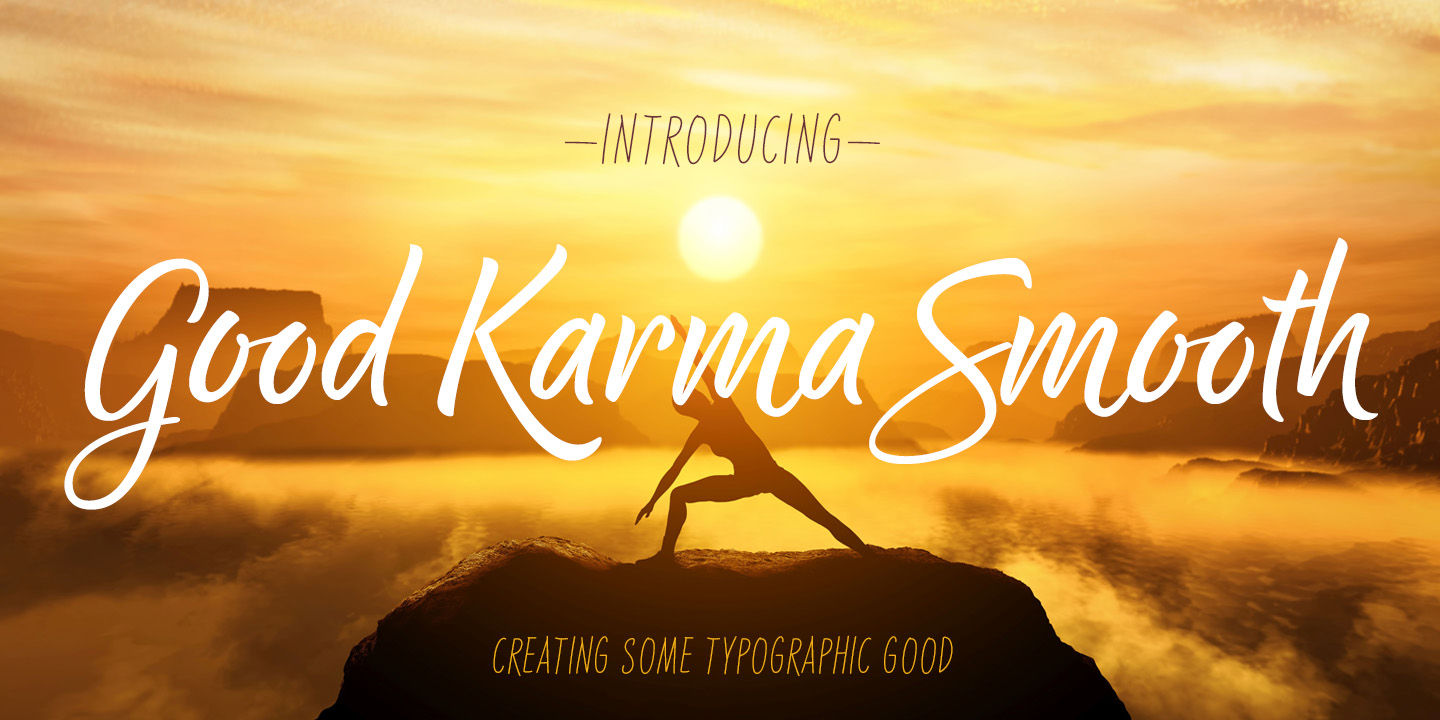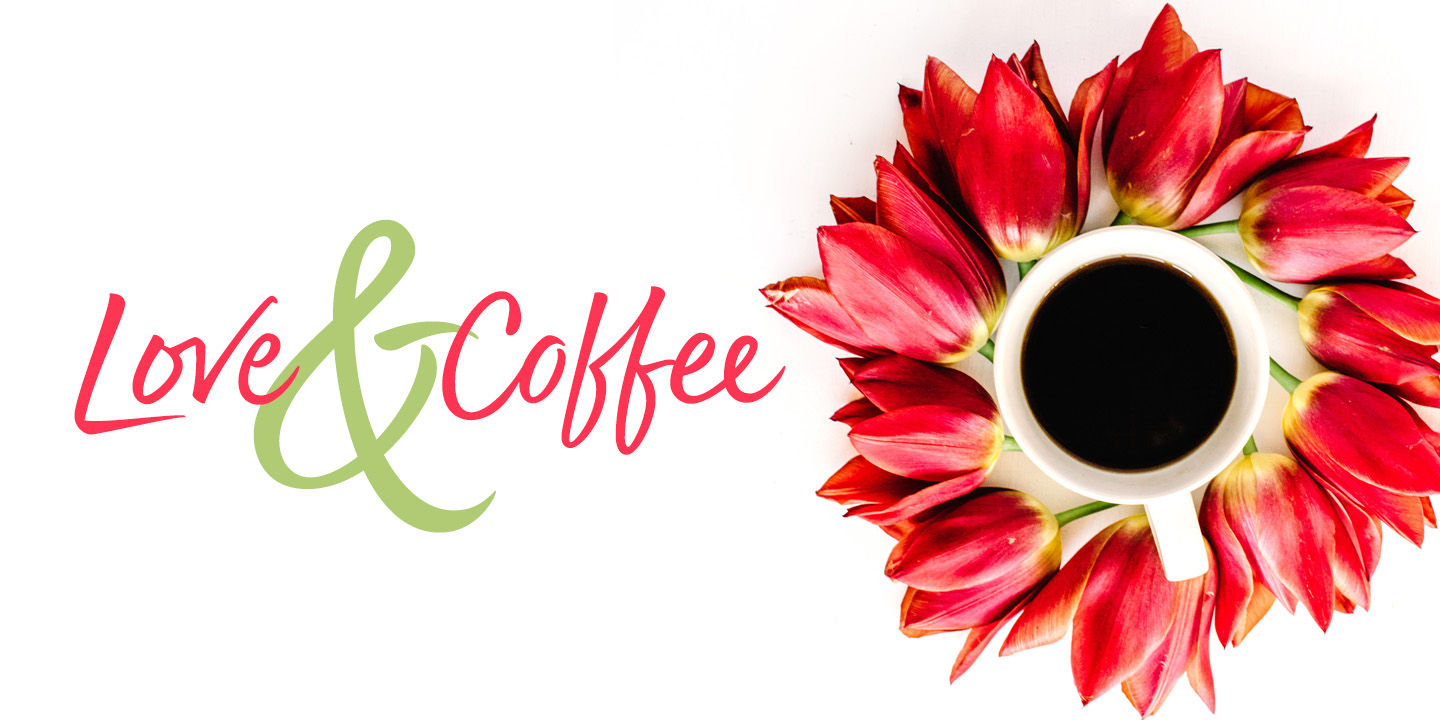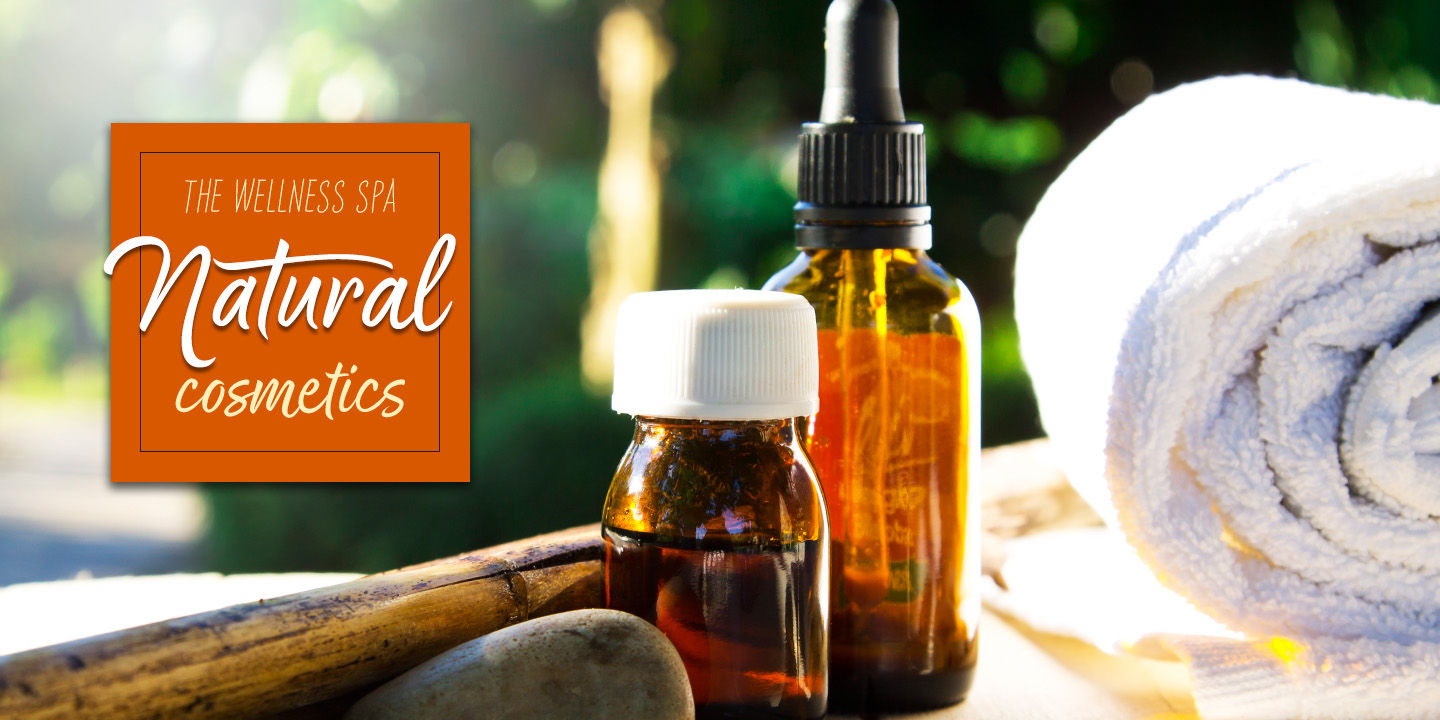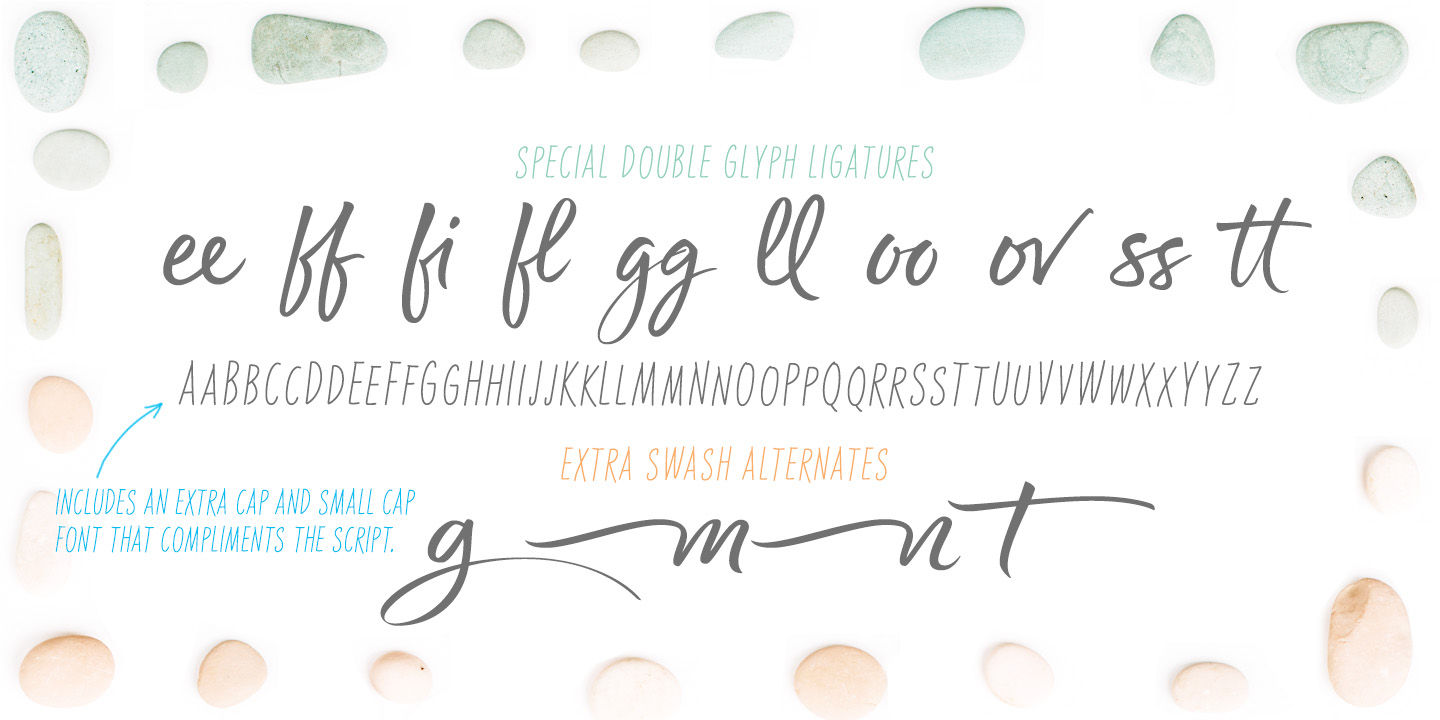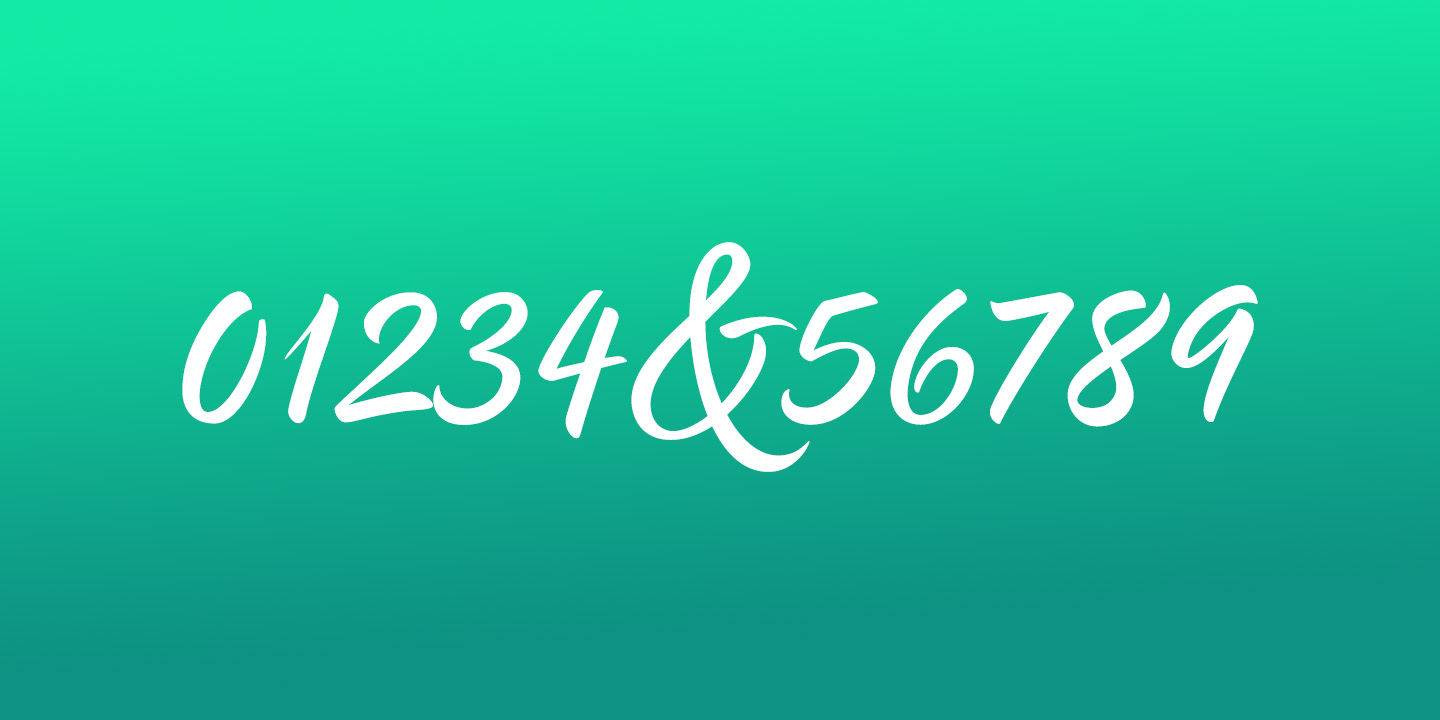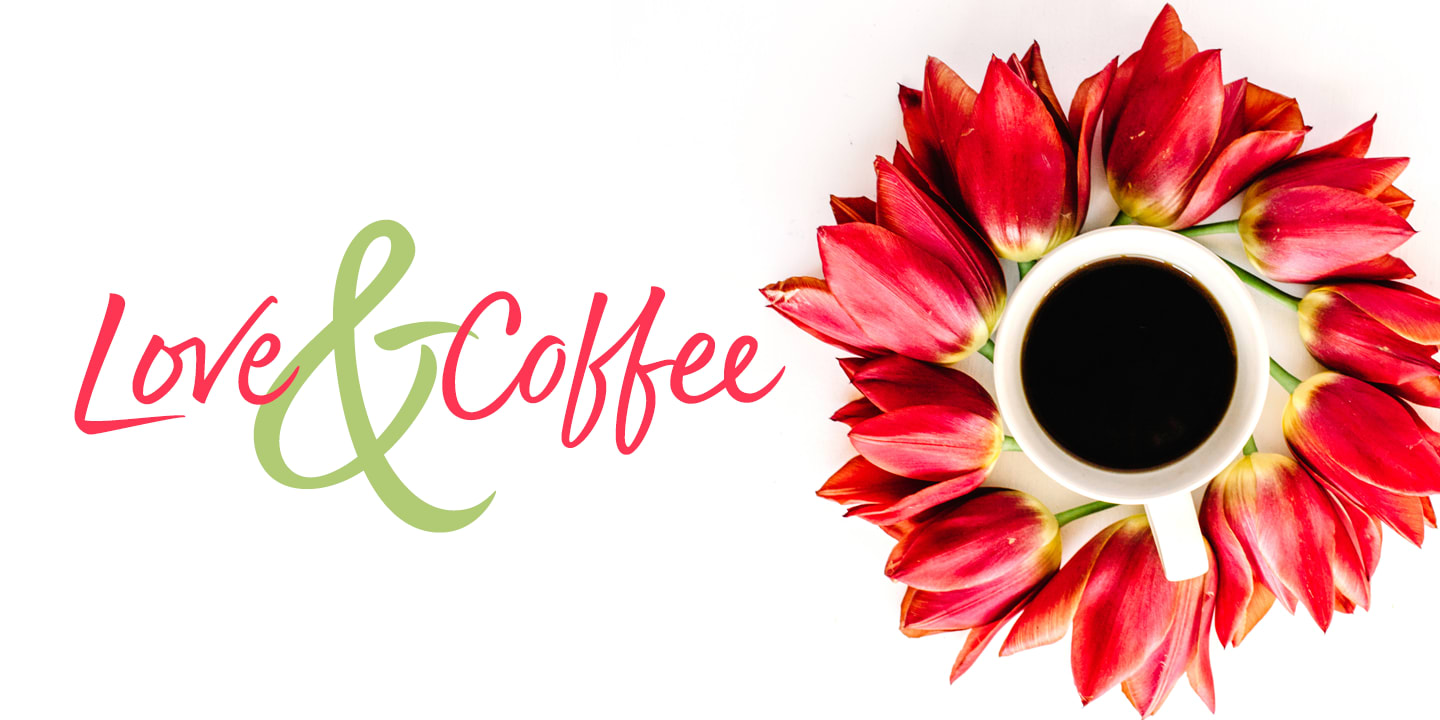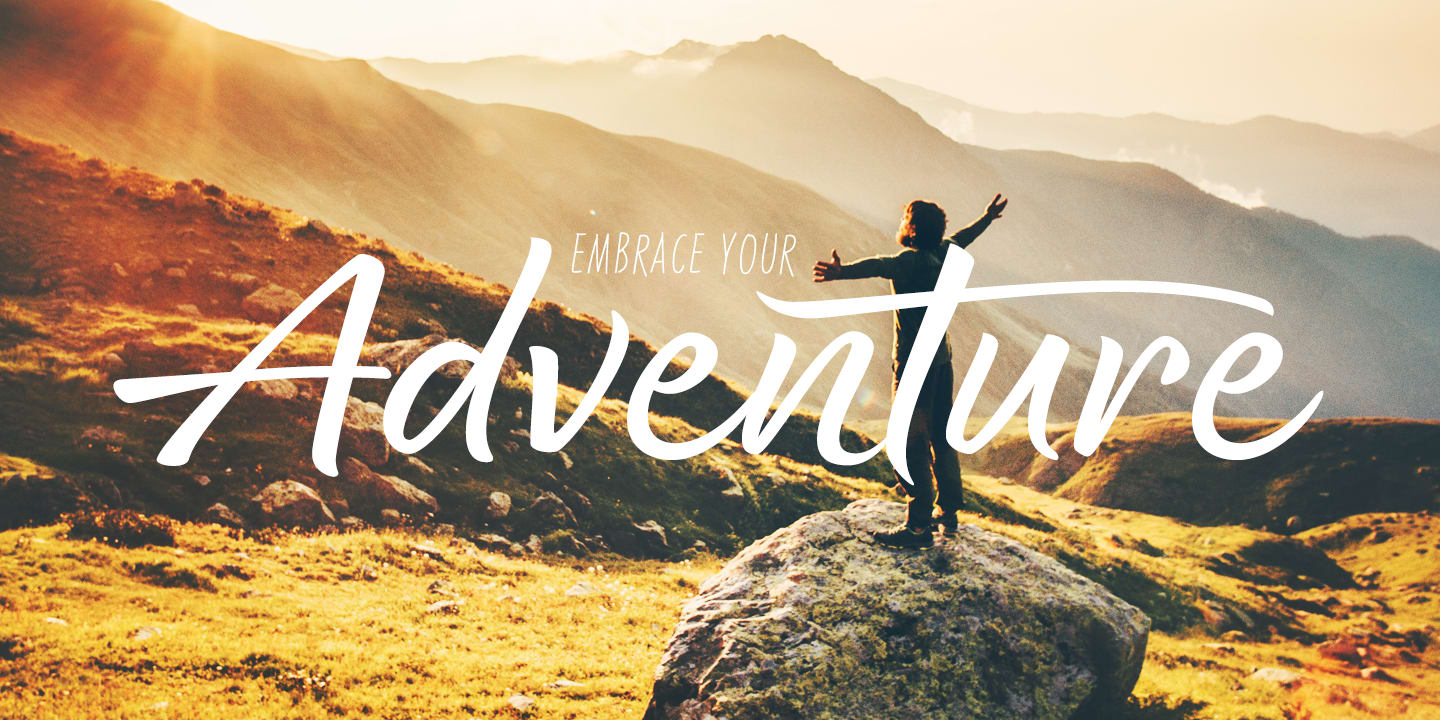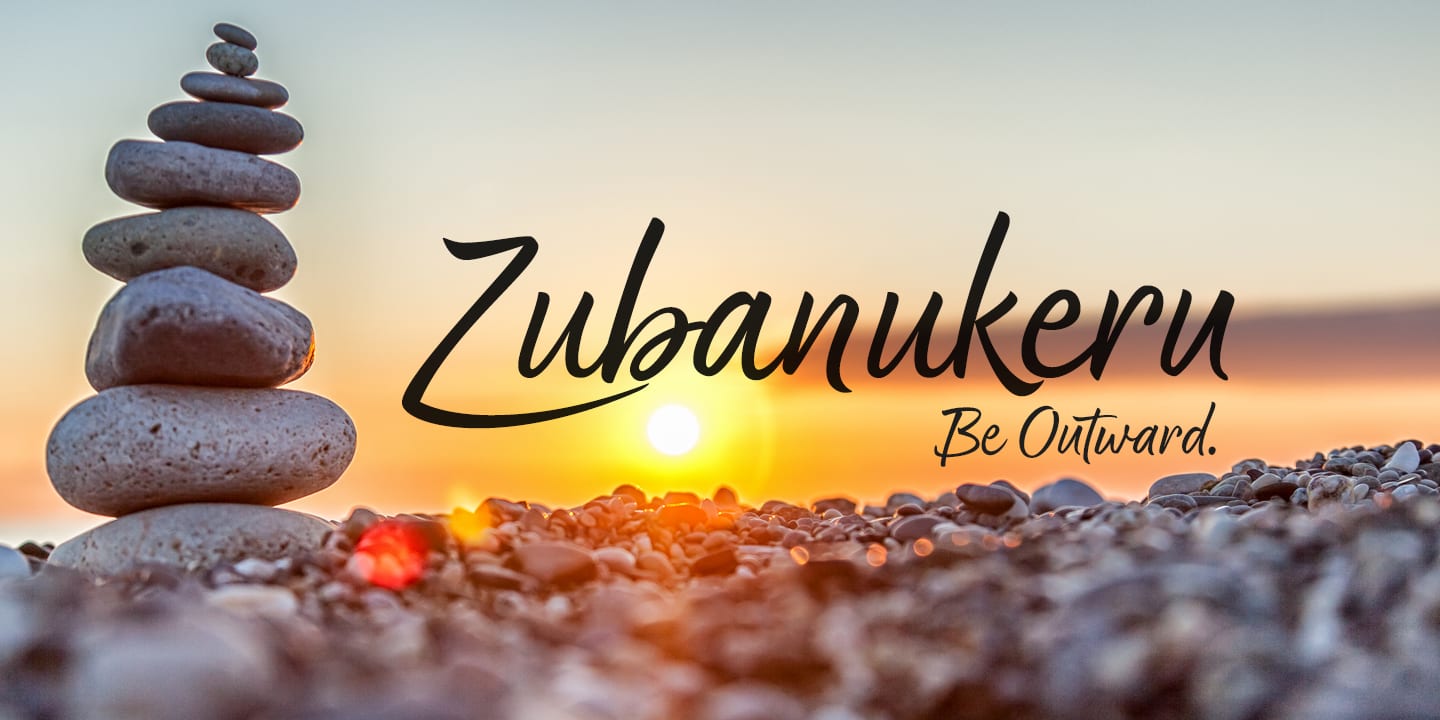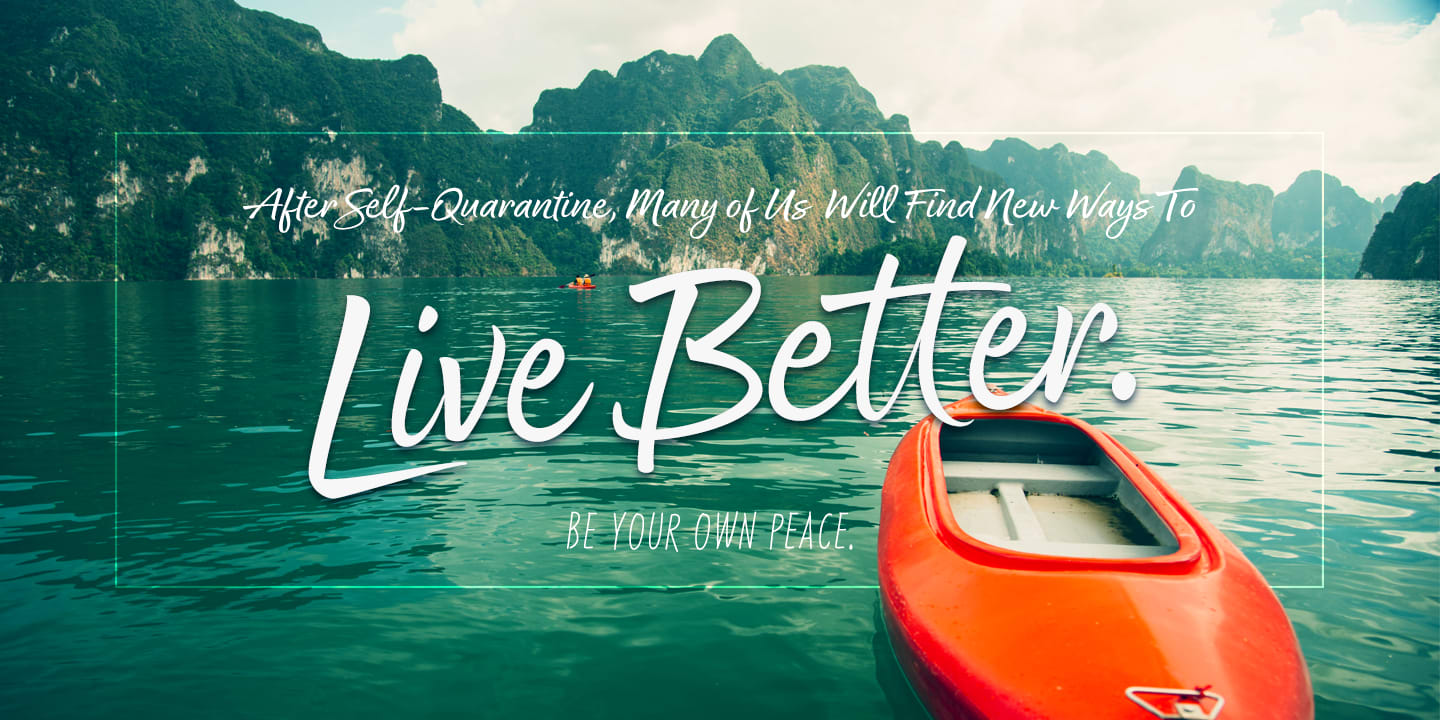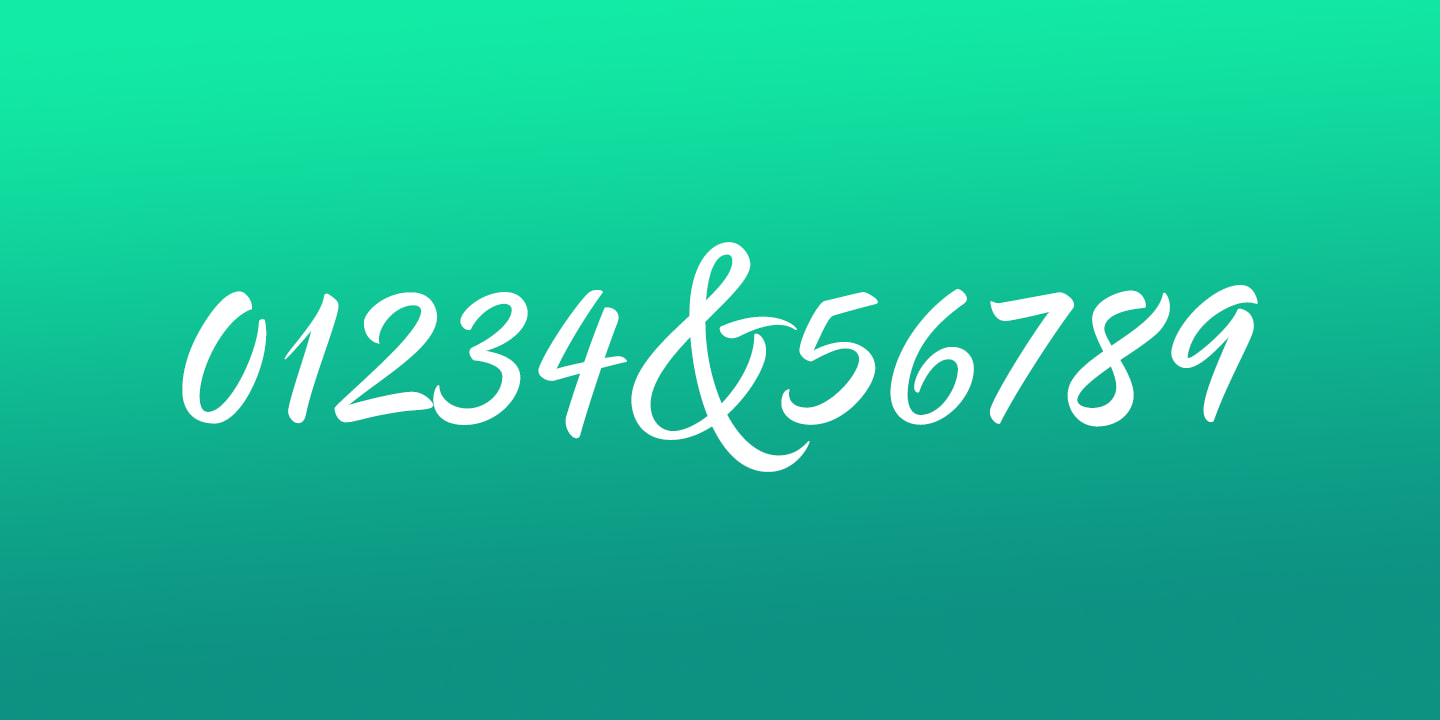
Good Karma Smooth
Good Karma (its namesake) will be extended to you as you use this new relaxed script family. Produced from hand and sumi brush of Neil Summerour, Good Karma is a natural brush textured font family. Good Karma is filled with a lot of heart, reliable and genuine movements, and a wide range of letter options to befit any project needing an honest hand-lettered look.
Each typeface comes with an additional set of stylistic alternates (upper AND lowercase) that harmonize wonderfully when you have the Opentype Ligature feature active. Additionally, special double-letter ligatures have been produced for specific combinations in need of more expressive flair, as well as a few swashes that work with the economical strokes originally produced from the sumi brush.
To further expand the usefulnesss of this peaceful script, a separate Caps/Small Caps font has been added that provides the simple contrast needed to bring the script fonts forward.
Rather than limit the personality of this script, various styles have been produced to complement the original Regular—Upright, Wide, Wide Upright, and the aforementioned Caps fonts are included in hopes of helping you find the perfect variation needed for your composition.
Good Karma is the first release of the Positype Relaxed Script Collection of typefaces—all focused on fluid, effortless script fonts for simple use.